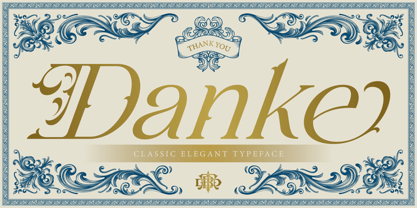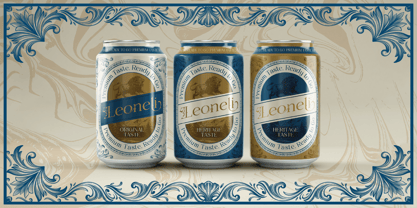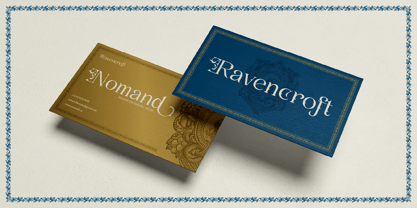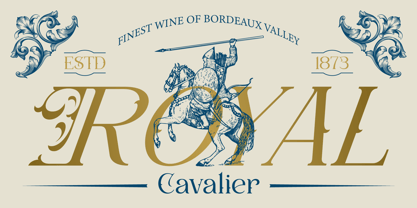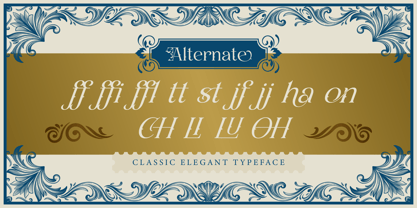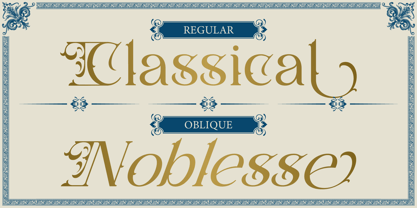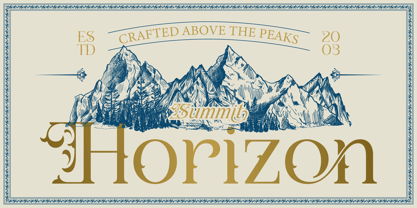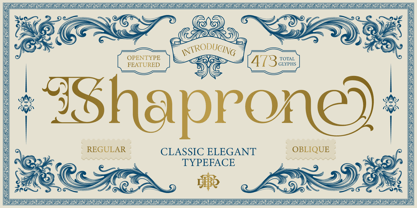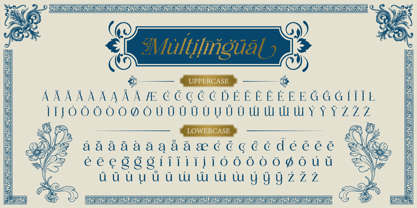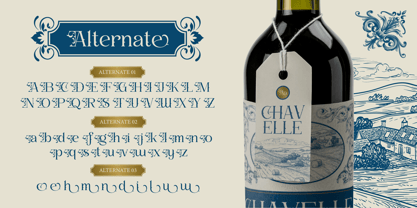
Shaprone
by Burntilldead
The Shaprone Font Family was designed by Eric Kurniawan and published by Burntilldead. Shaprone contains 2 styles and family package options. More about this family
Shaprone is a classic elegant typeface inspired by vintage European typography and luxury packaging design. This font combines refined serif shapes with beautiful decorative alternates, creating a timeless and sophisticated look. With its graceful curves and stylish details, Shaprone is perfect for designs that want to feel elegant, luxurious, and premium. The font includes Regular and Oblique styles, giving you flexibility to create both classic and dynamic typography. Whether you're working on wine labels, luxury branding, vintage packaging, editorial layouts, or elegant invitations, Shaprone will add a refined and classy touch to your project.
Designers: Eric Kurniawan
Foundry: Burntilldead